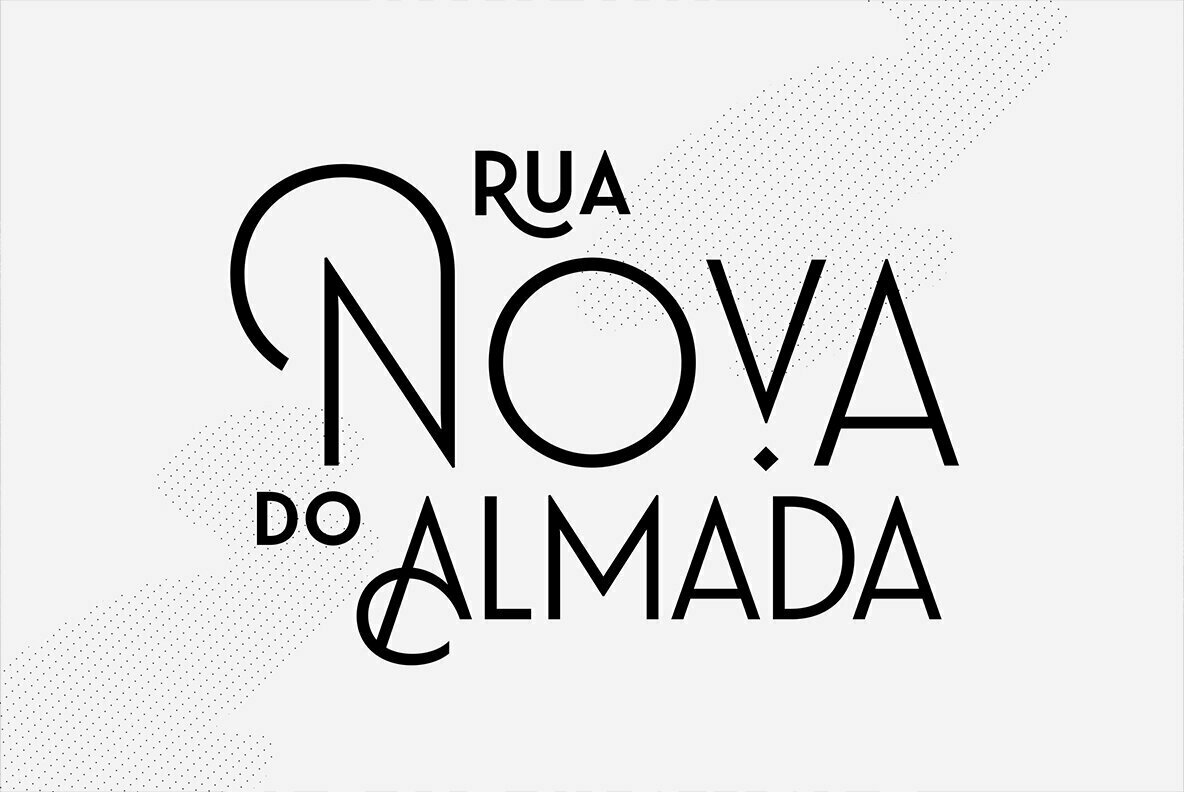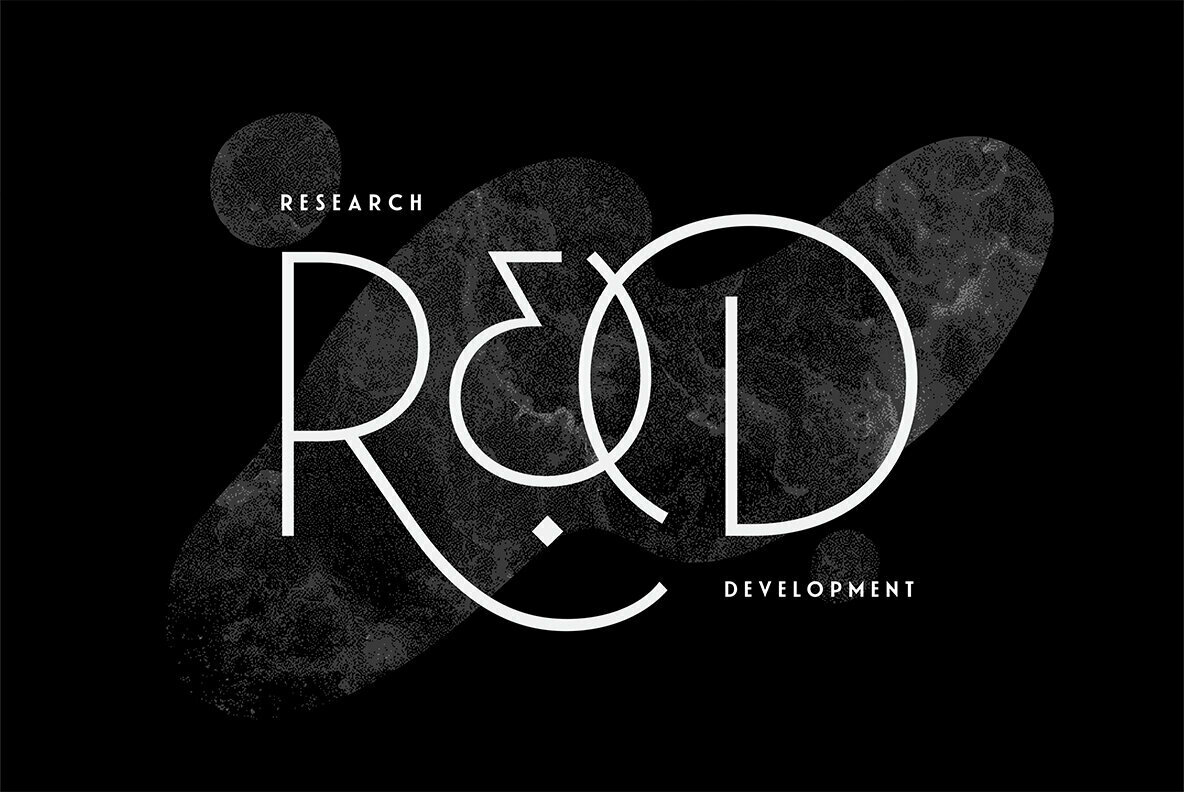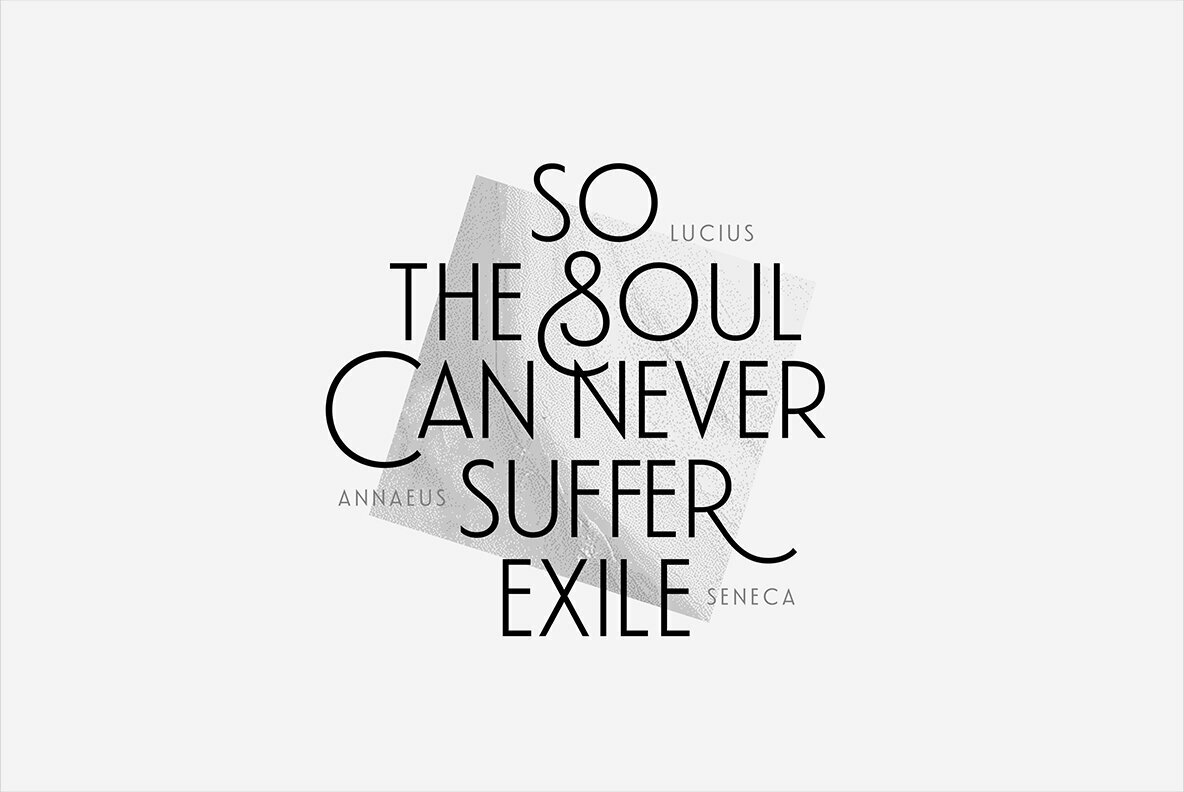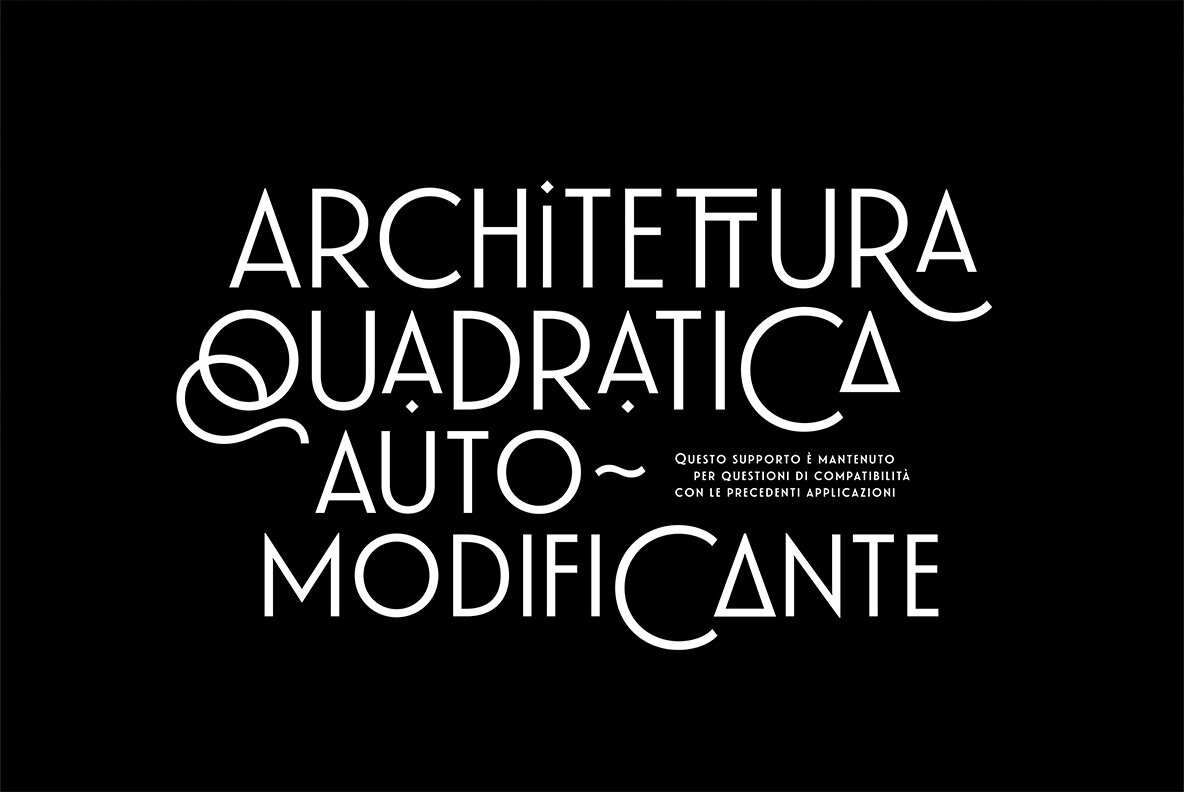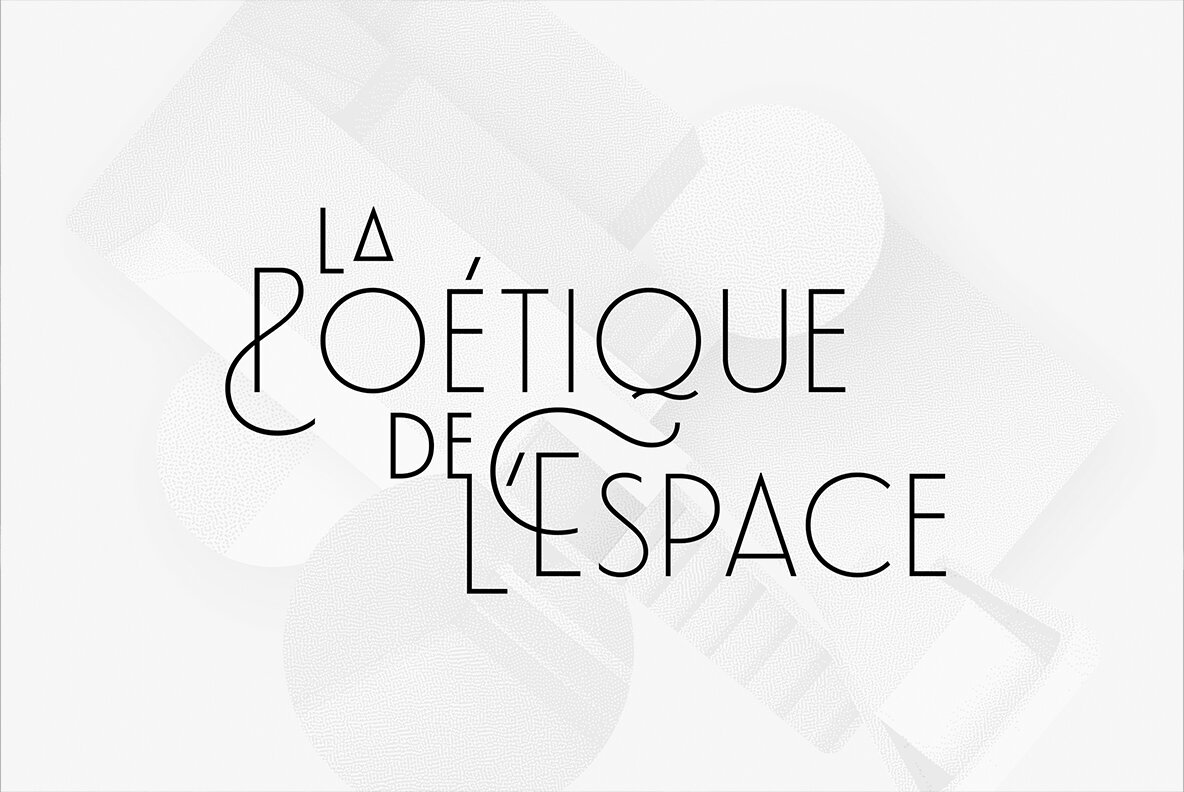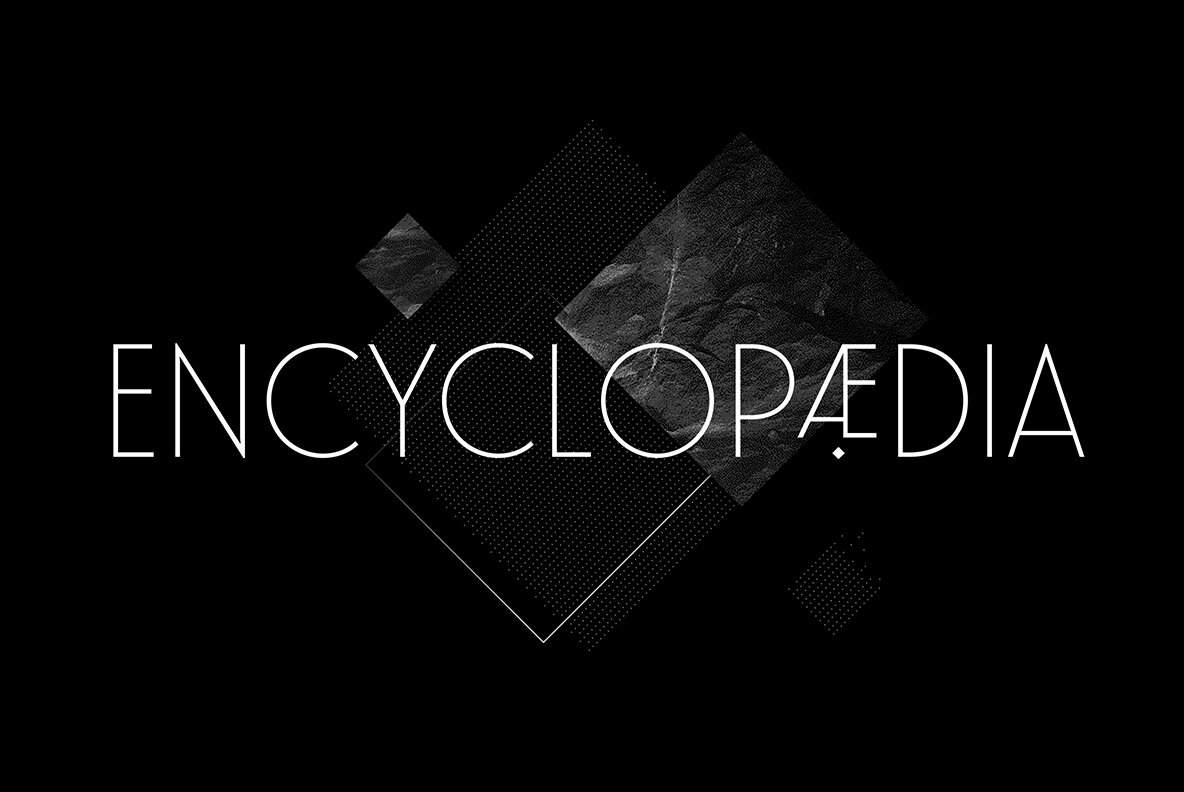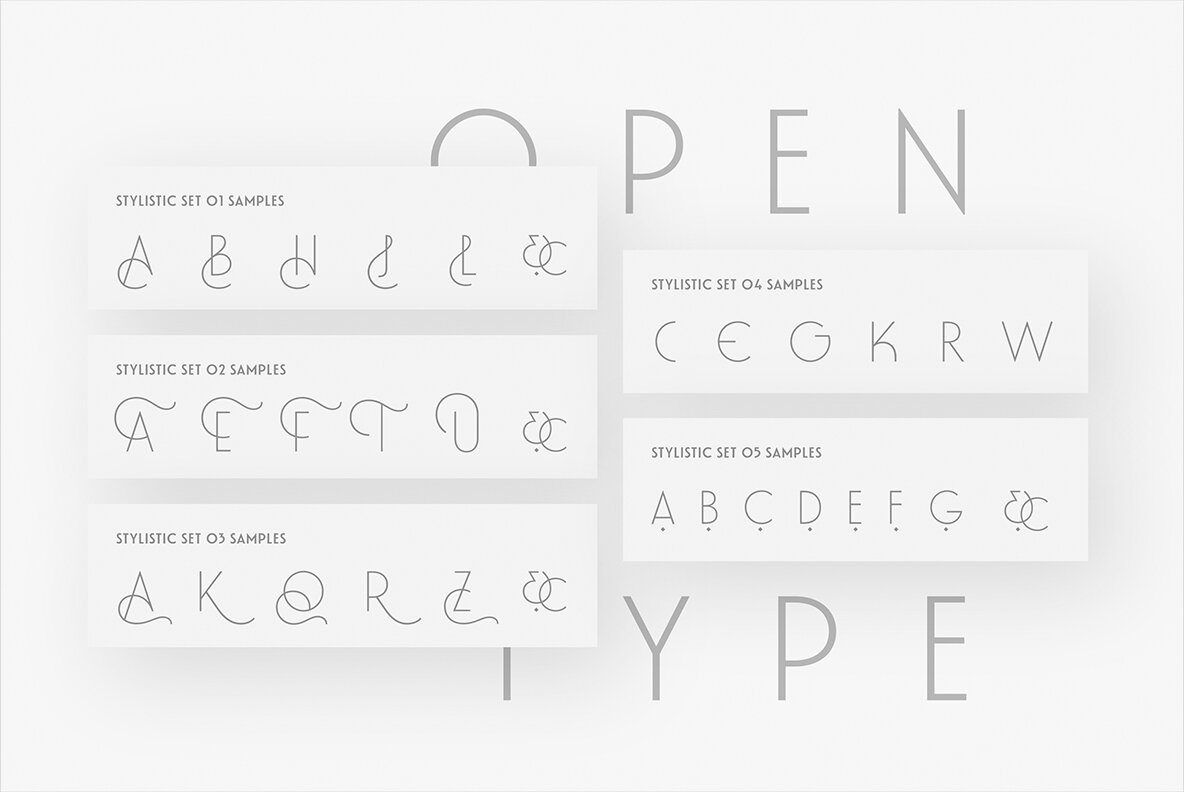
Waverly CF Font
Waverly CF combines the tone and flow of art deco with updated, clean letterforms and a modernized construction. Variation in letter width creates a pleasant rhythm perfect for artwork and logos. Waverly CF offers wide language support across Latin and Cyrillic glyphs, and includes a host of swashes and alternate letterforms.